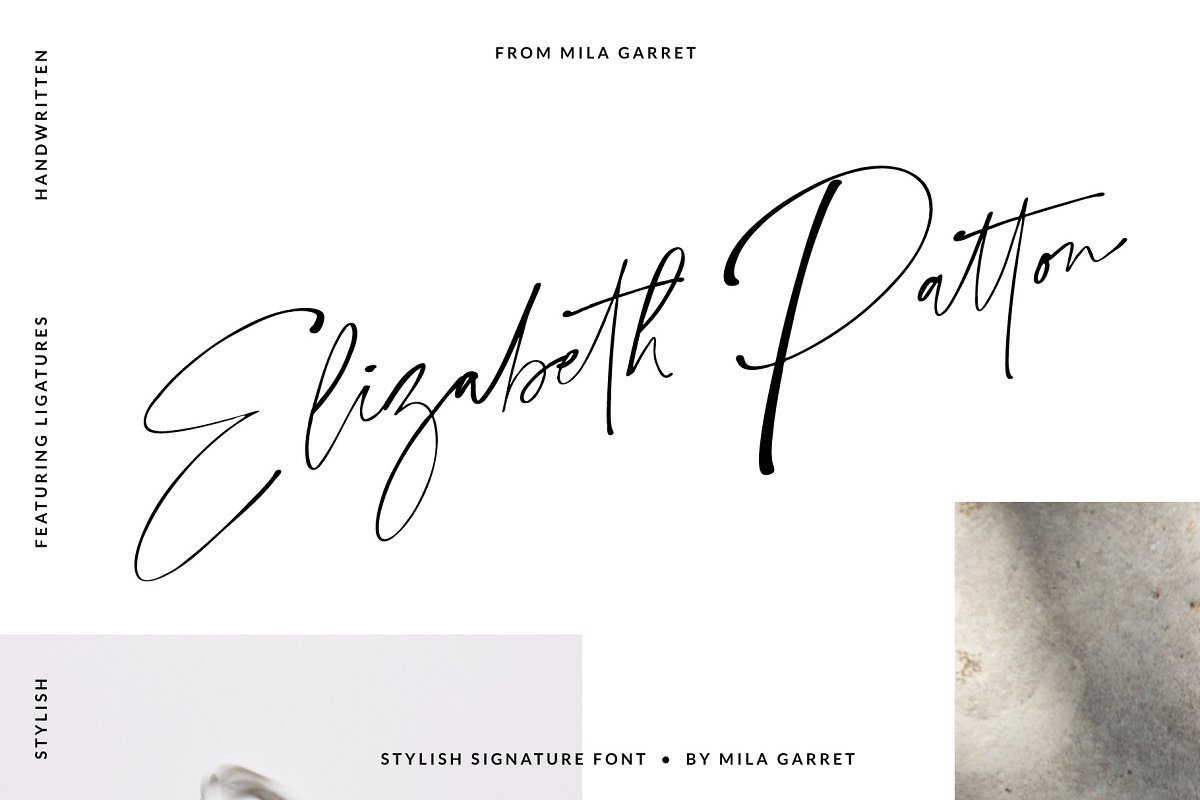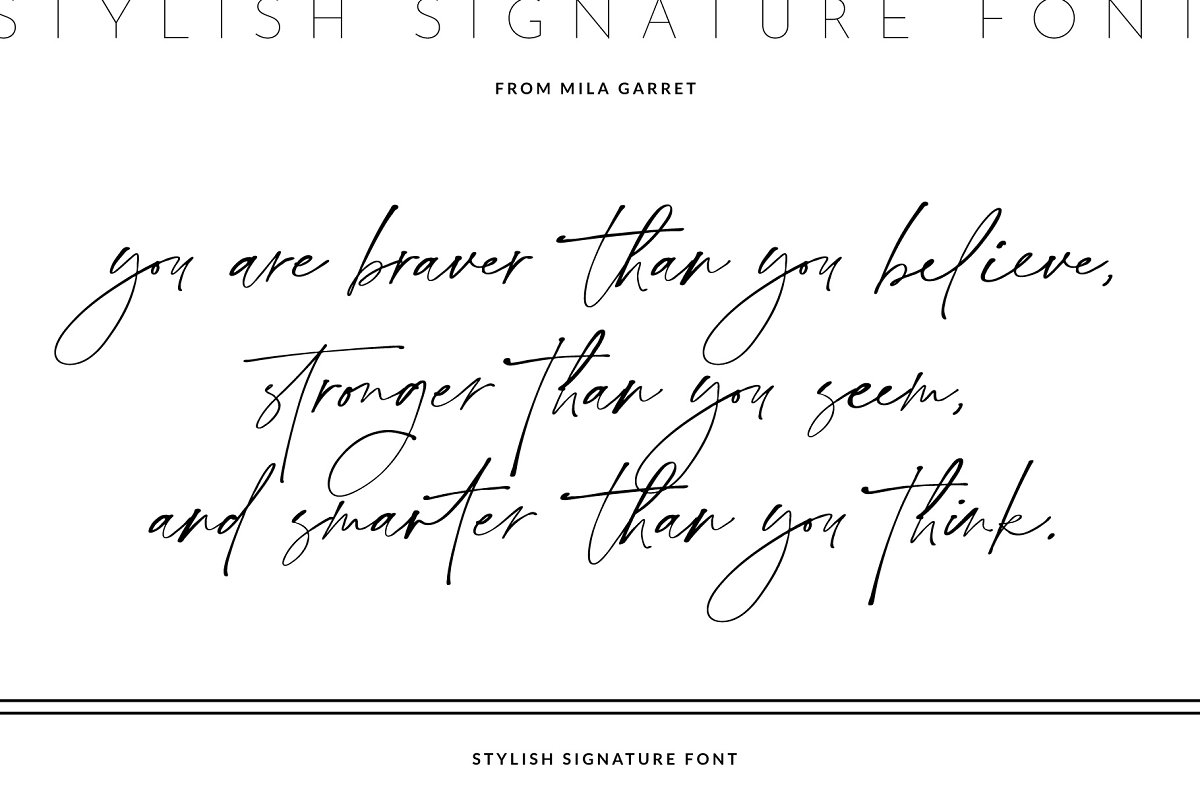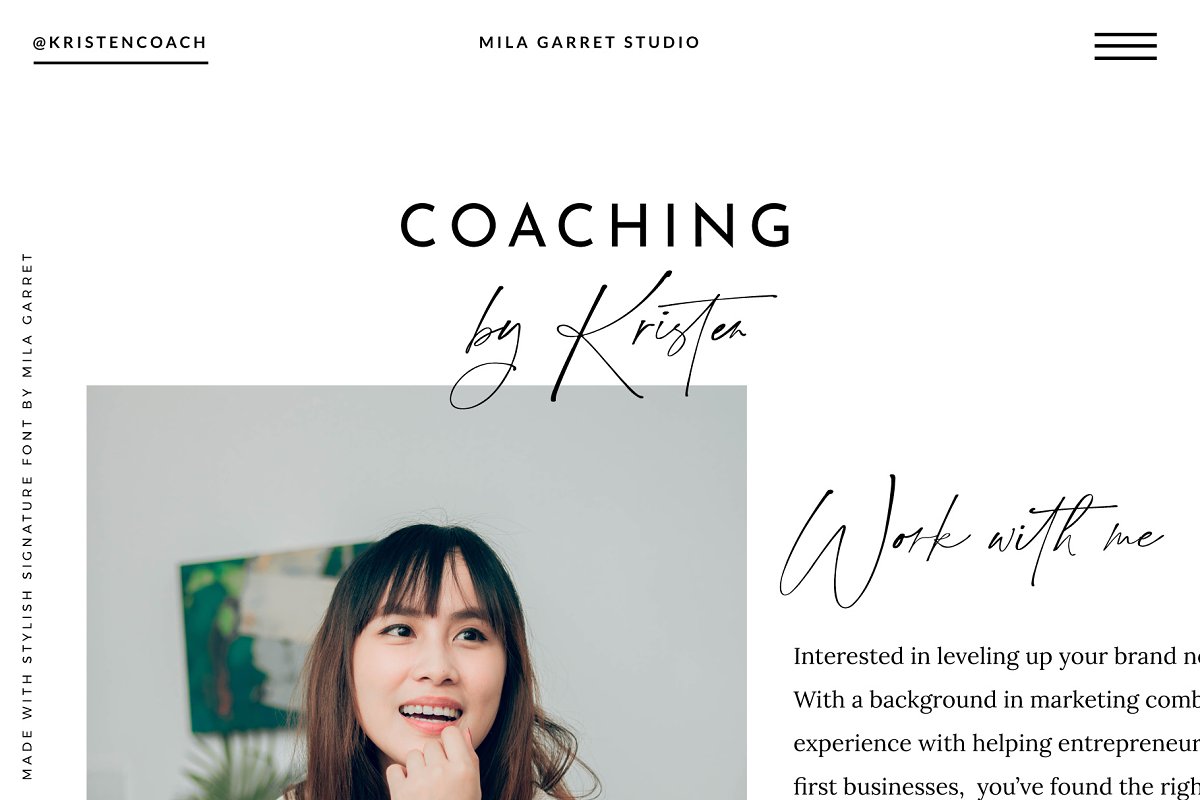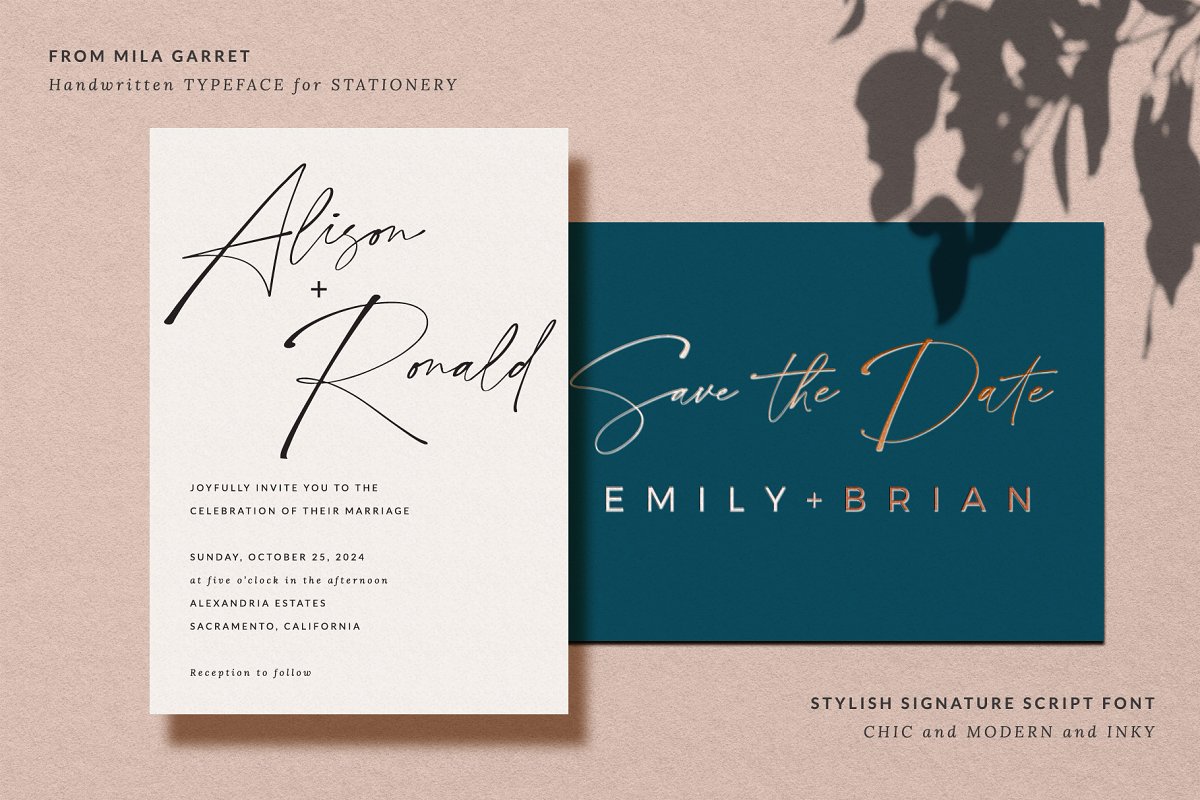
About the Stylish Signature Handwritten Script Font
Introducing a brand new handwriting font, Stylish Signature, a modern and minimal typeface packed with handwritten ligatures, Stylish Signature adds a chic elegance to websites, wedding stationery, modern logos and personal branding, social media quotes, and more, Included are 127 handwritten ligatures (glyphs of two or more letters), as well as a full set of alternate capitals (great for signature logos that use the same first letter in both names)